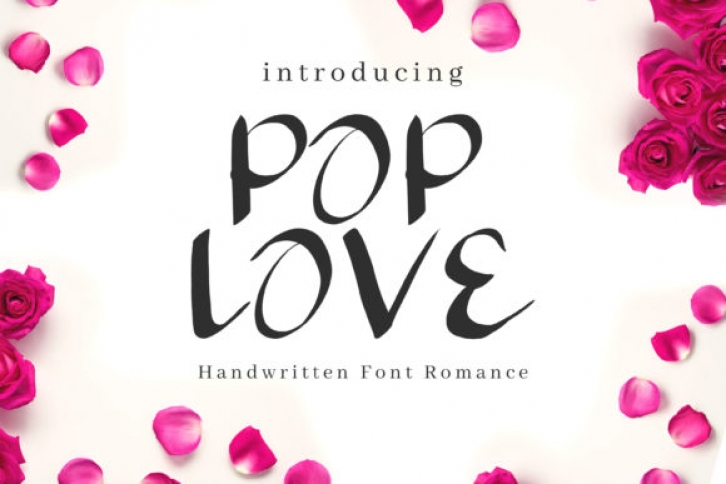
Pop Love is a playful, modern and romantic script font. It is defined by smooth curves and is perfect for fashion branding or editorial designs. Add it confidently to your projects, and you will love the results.